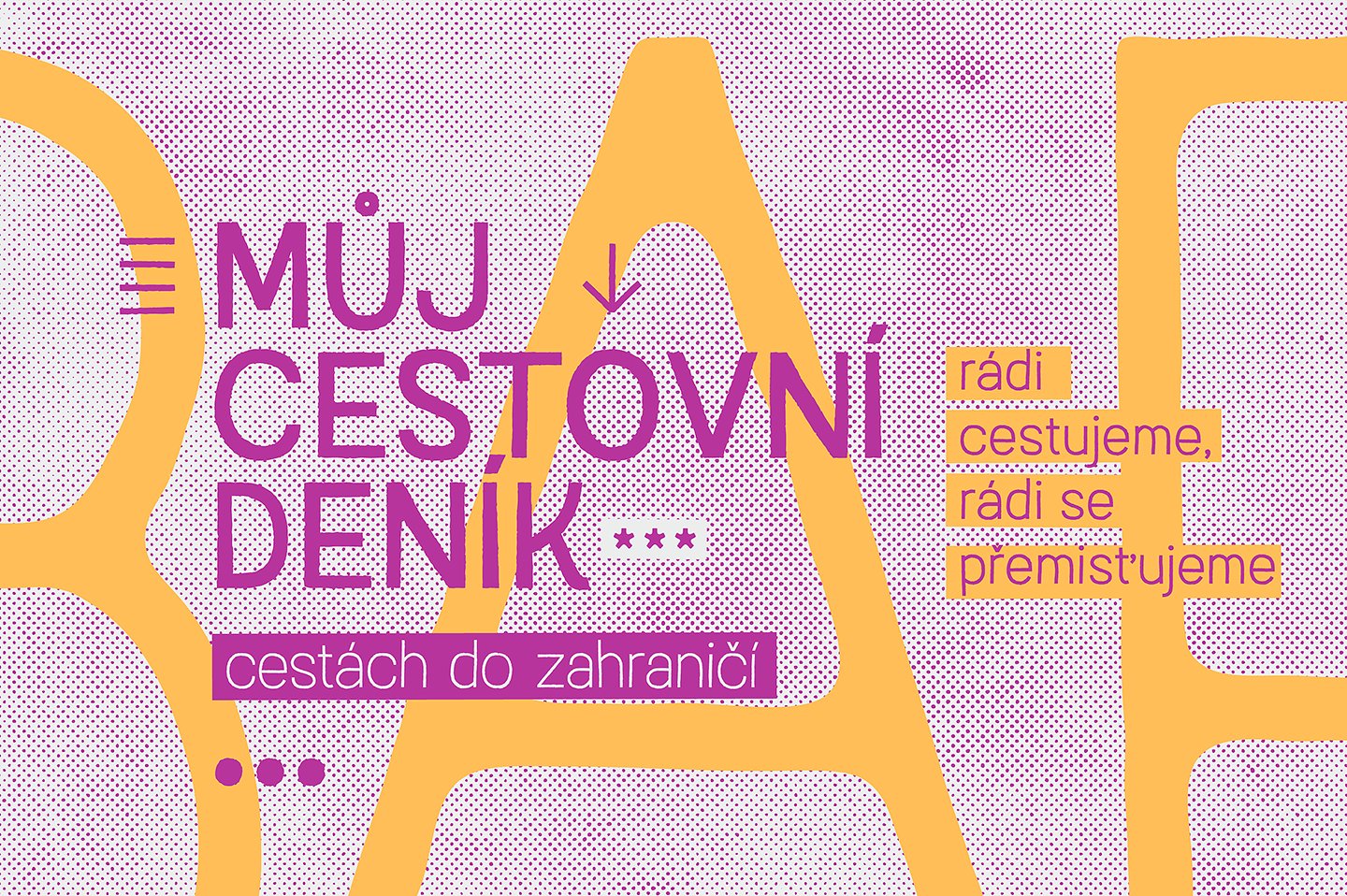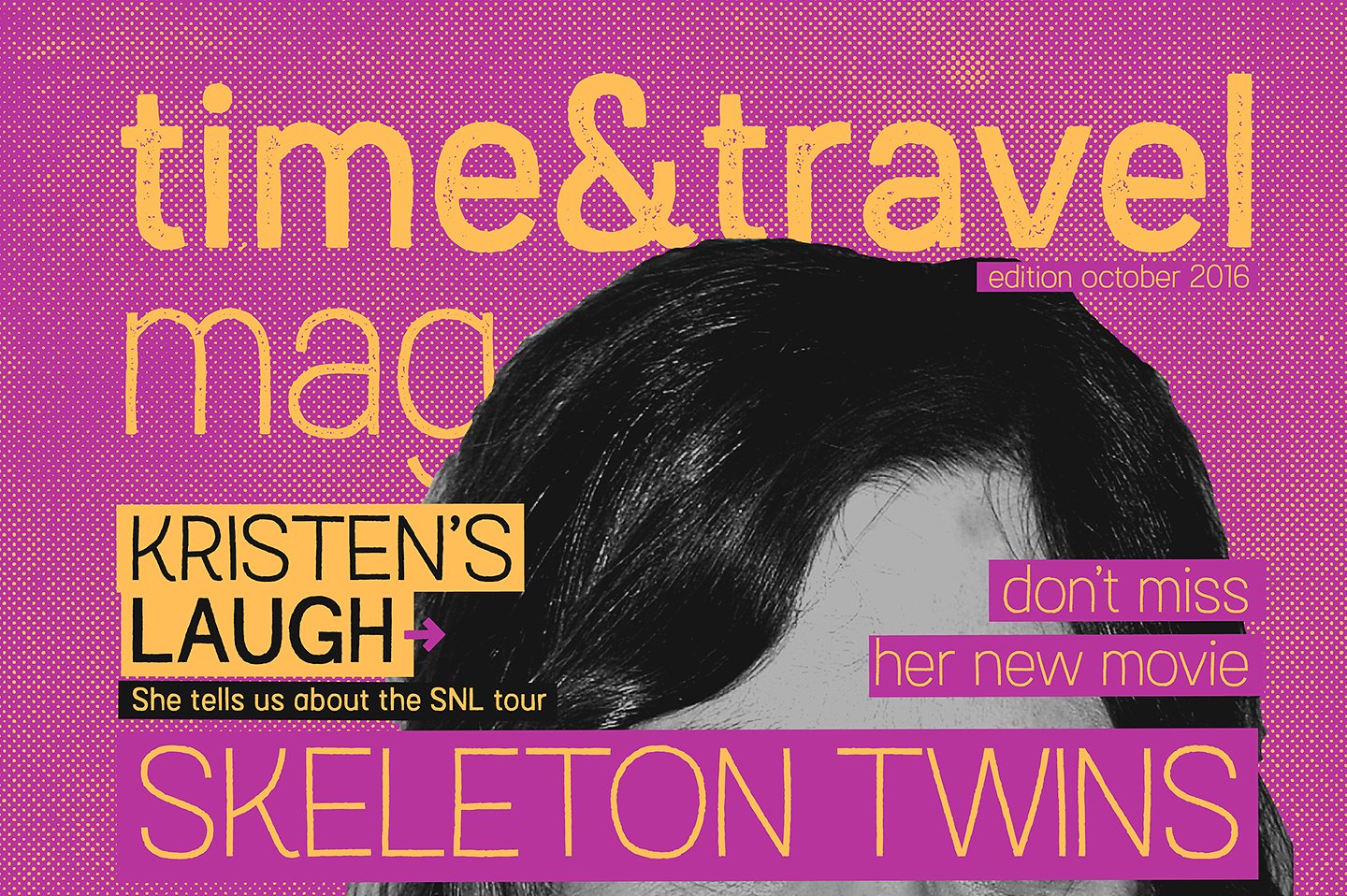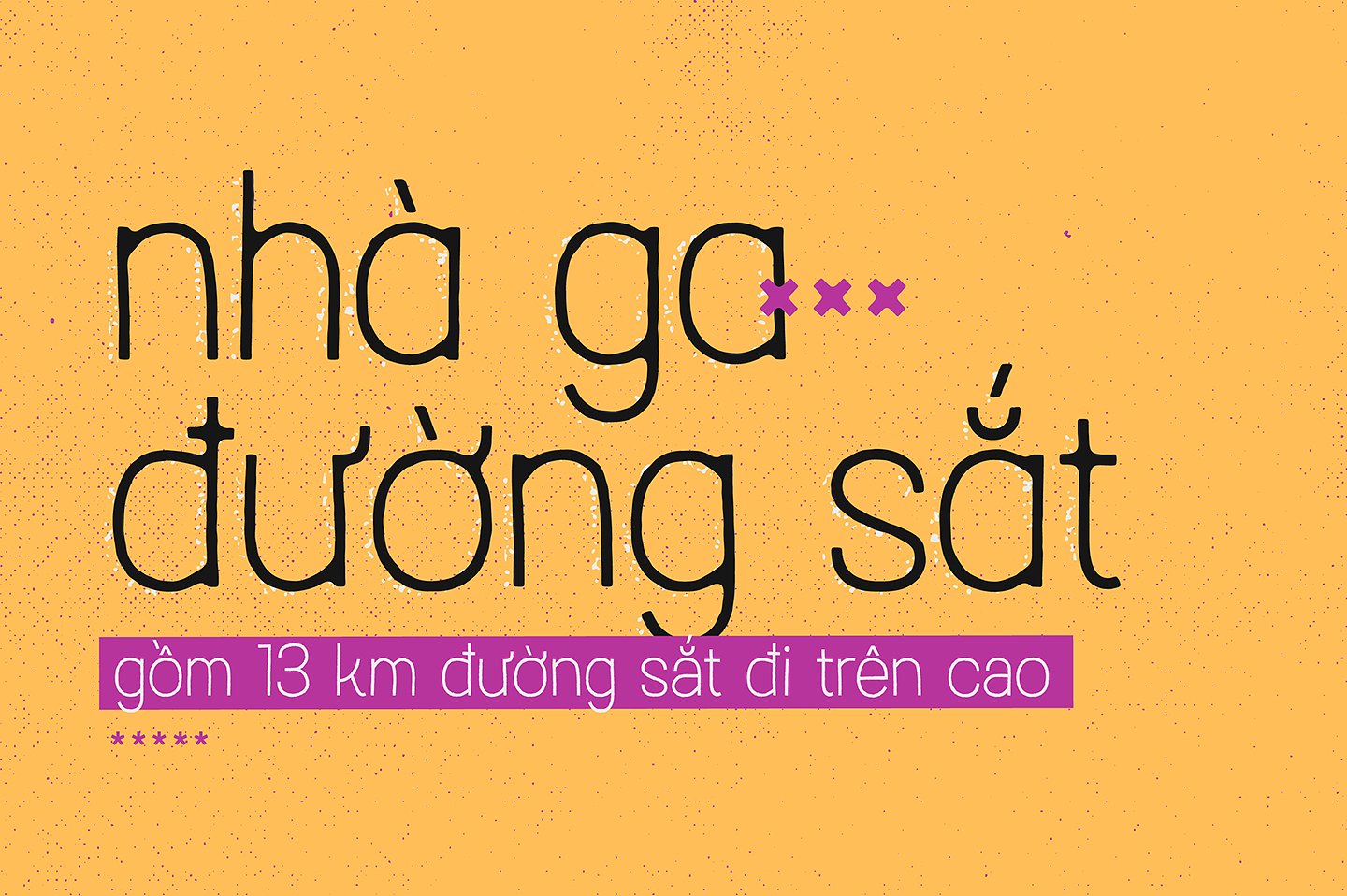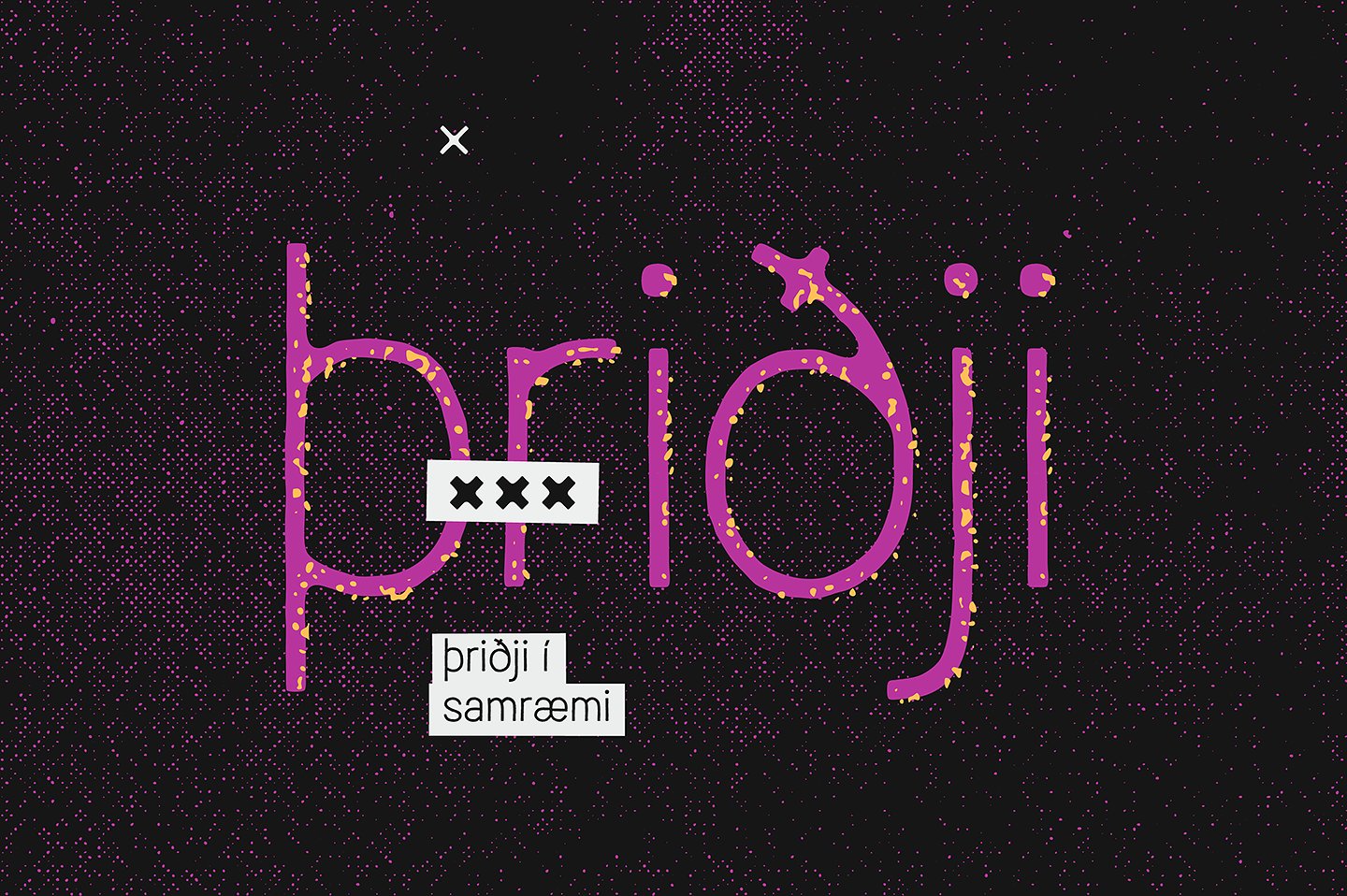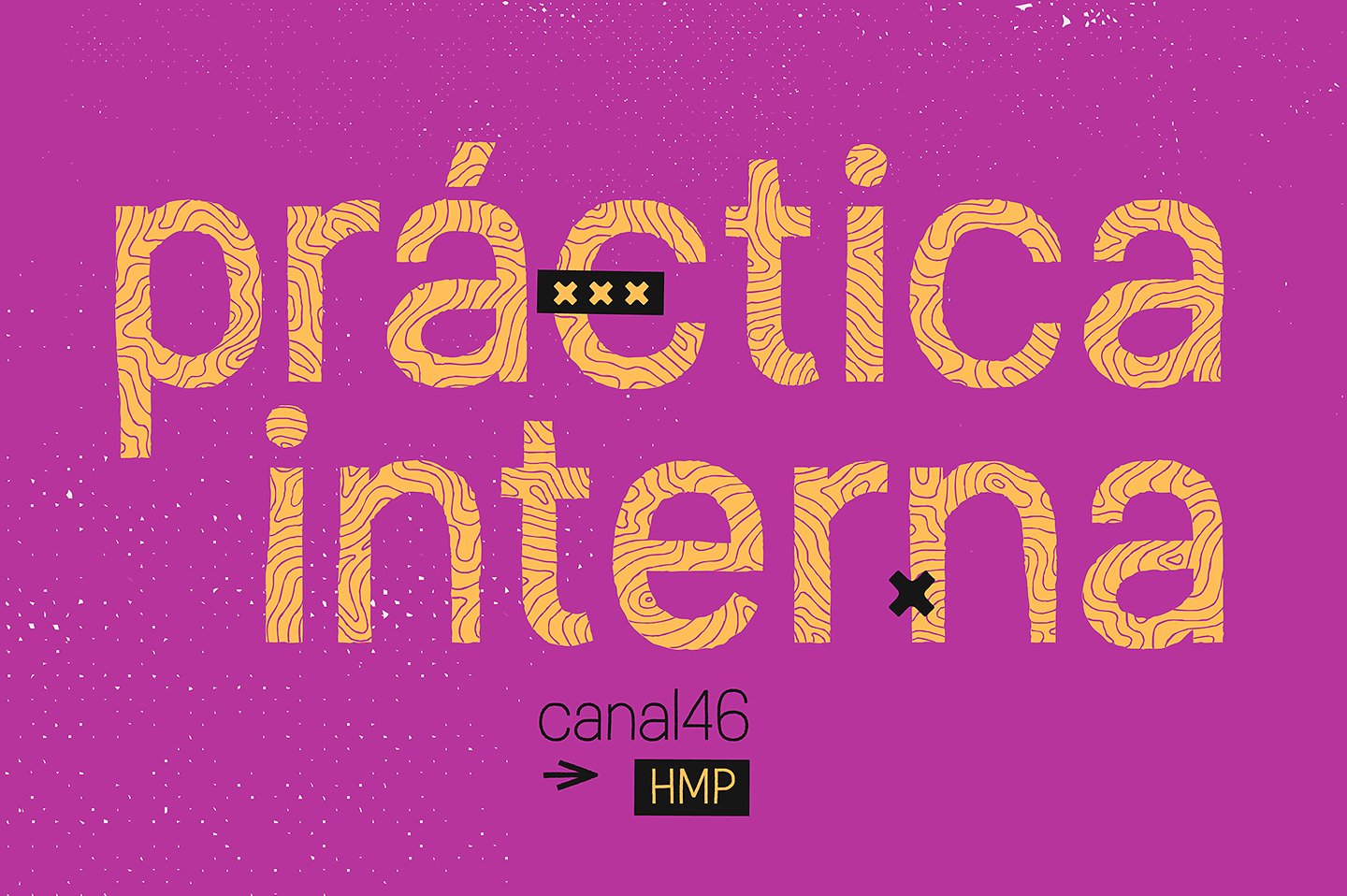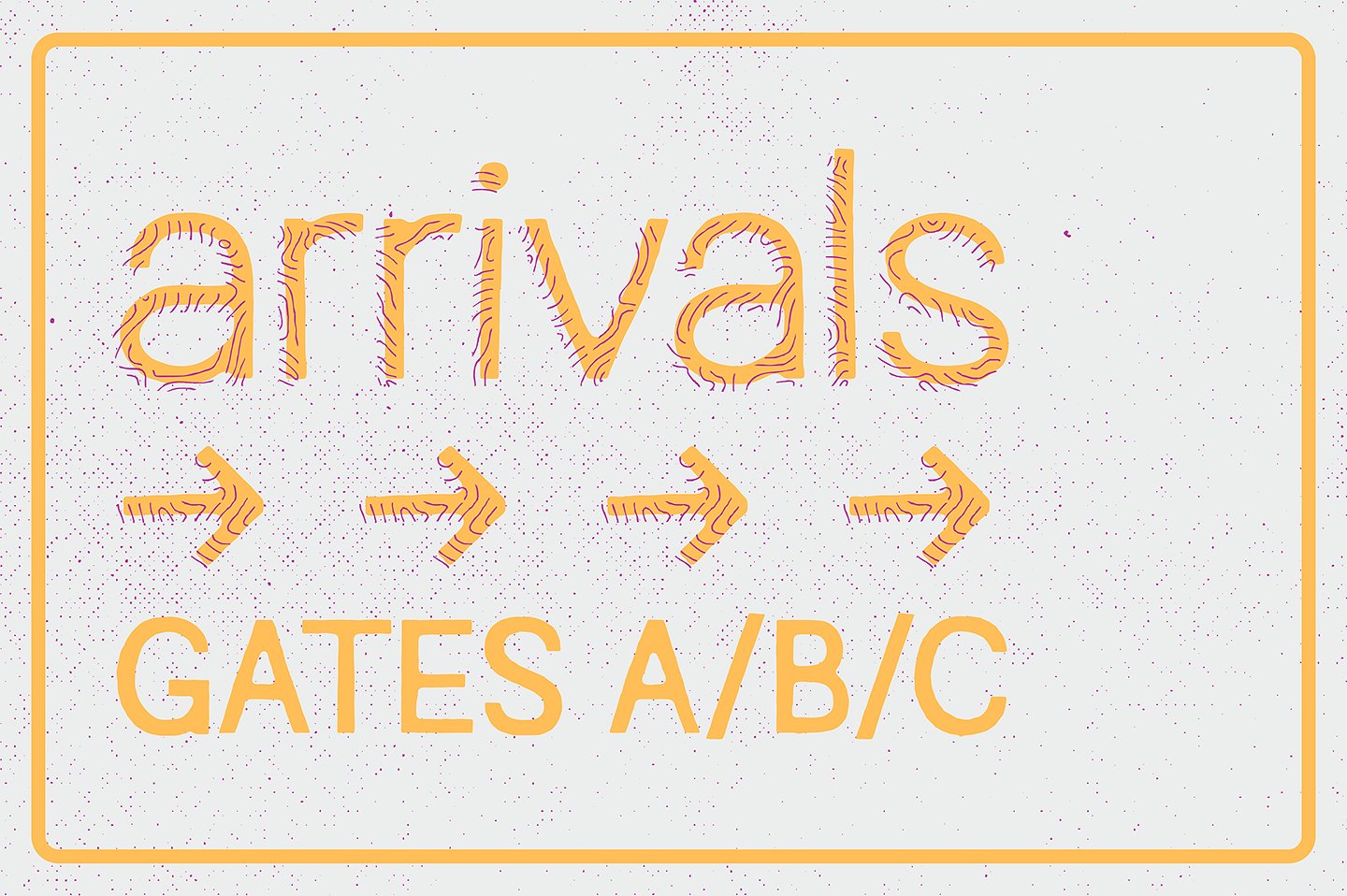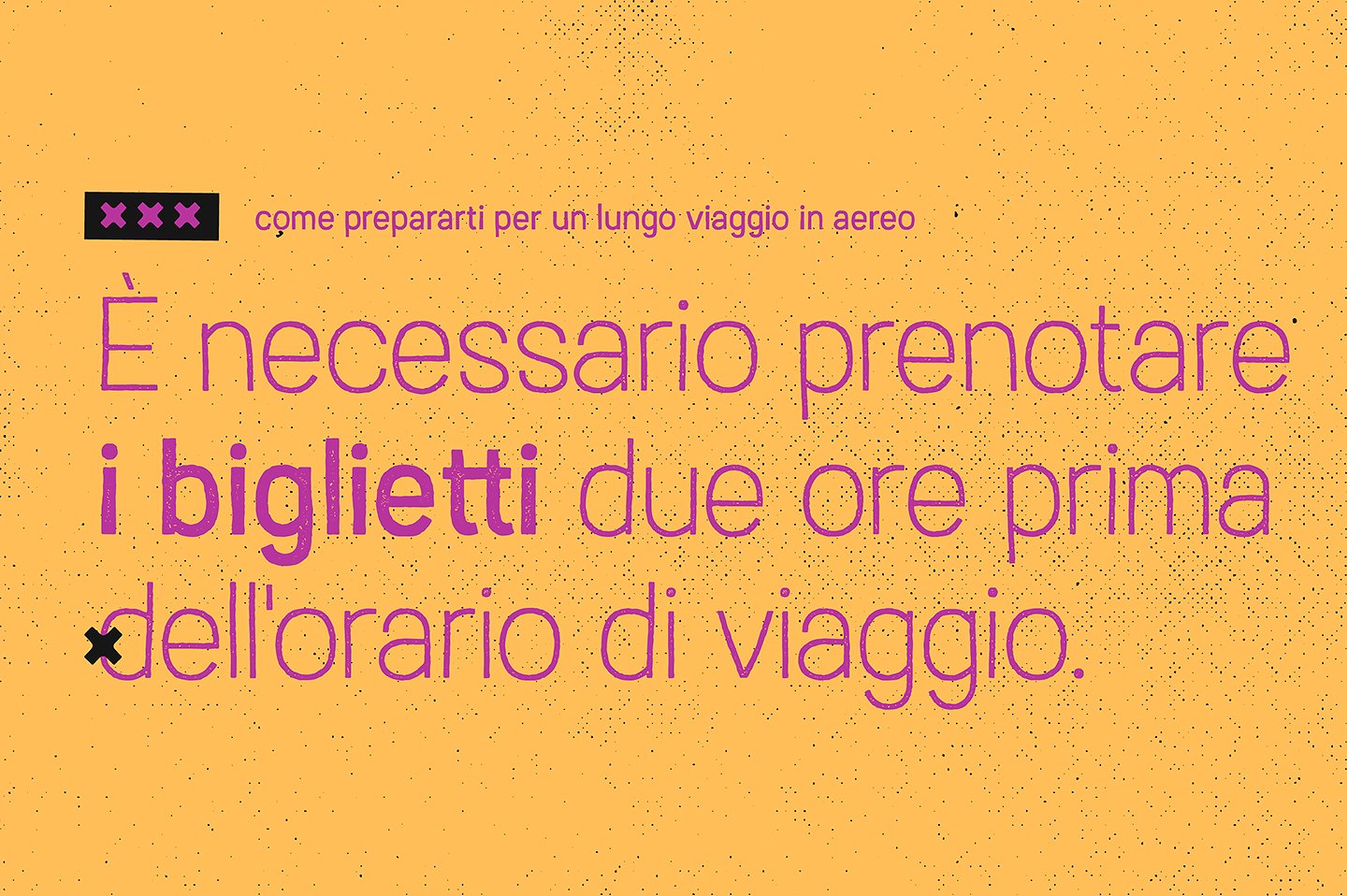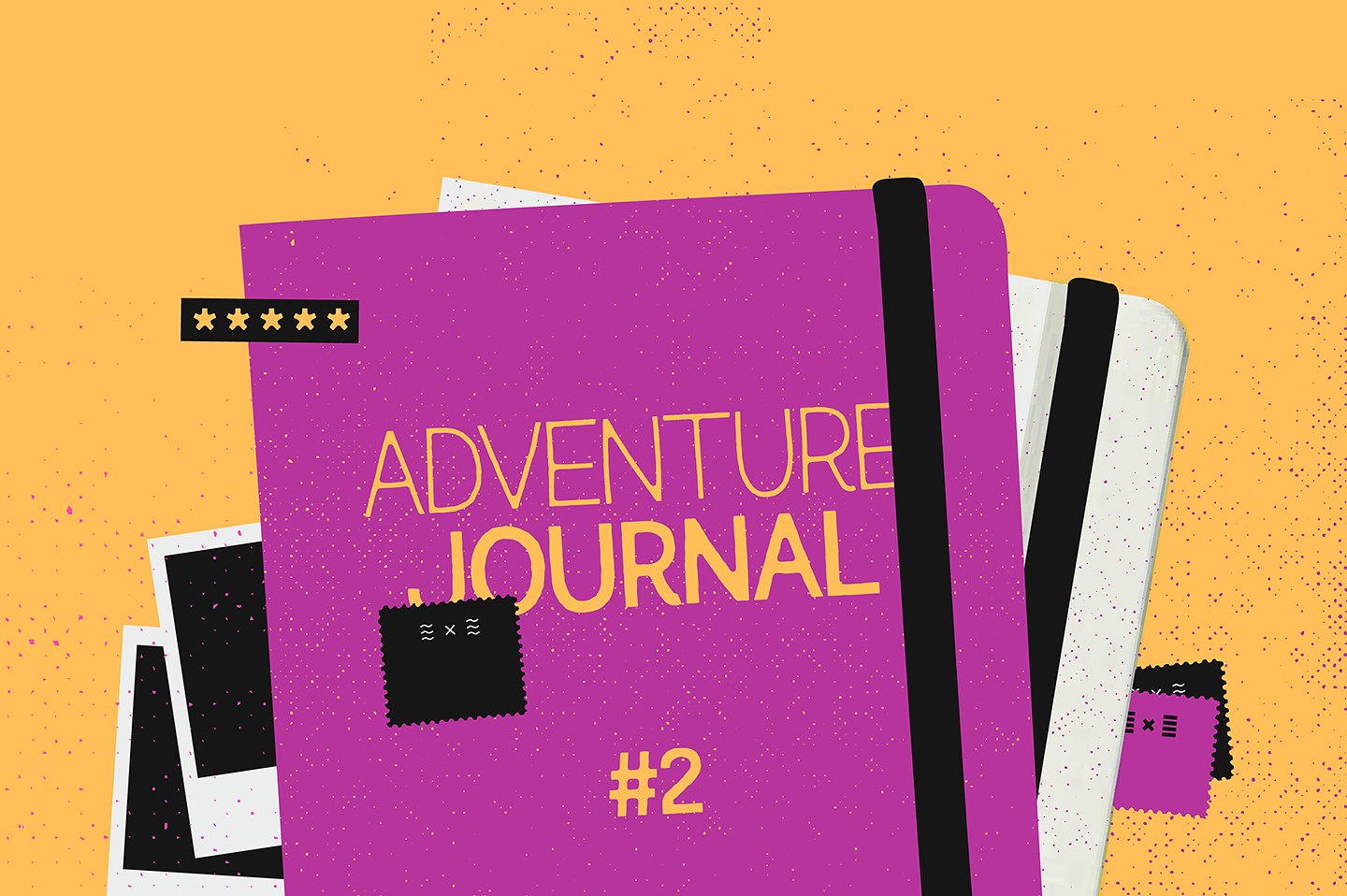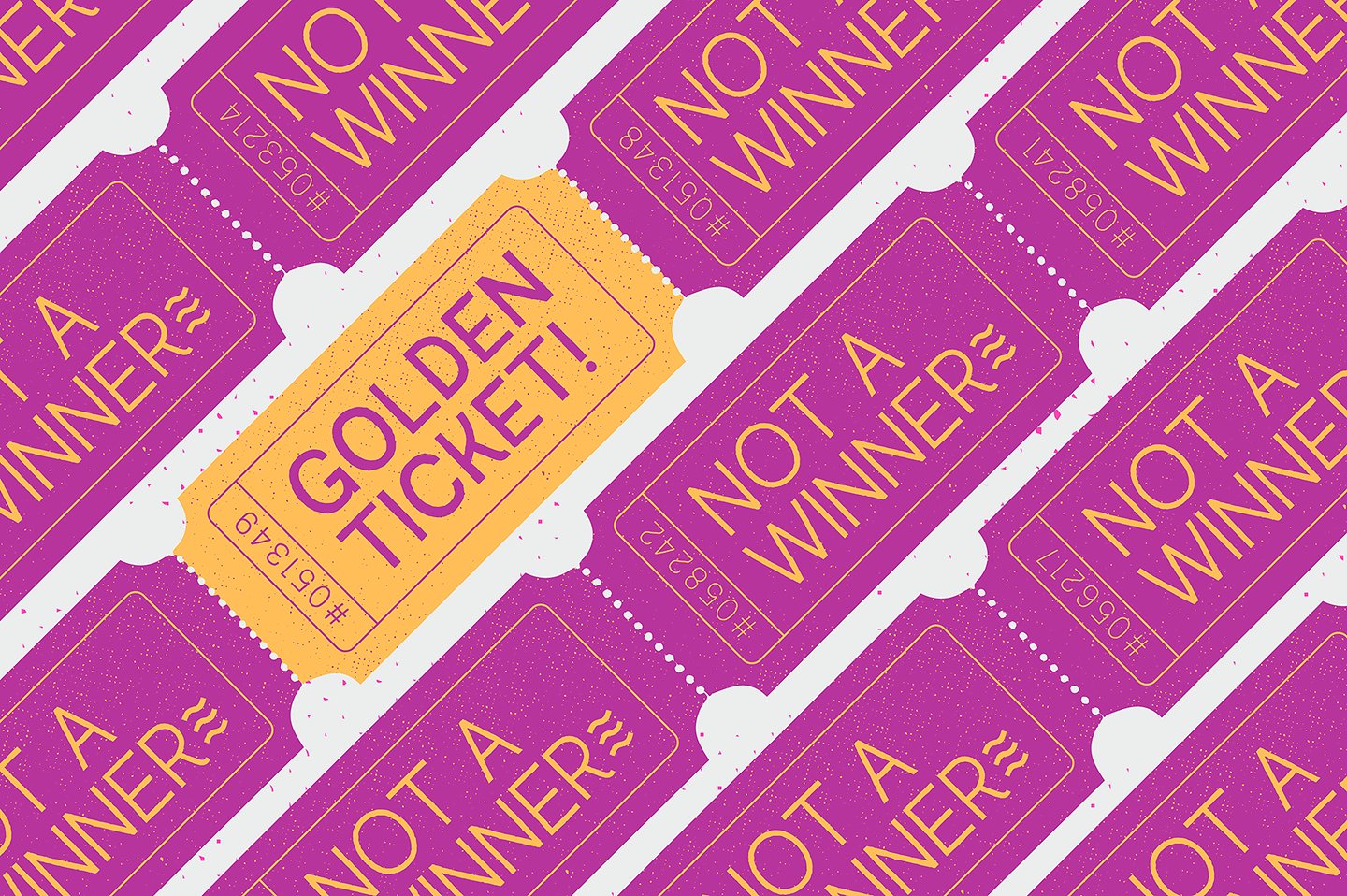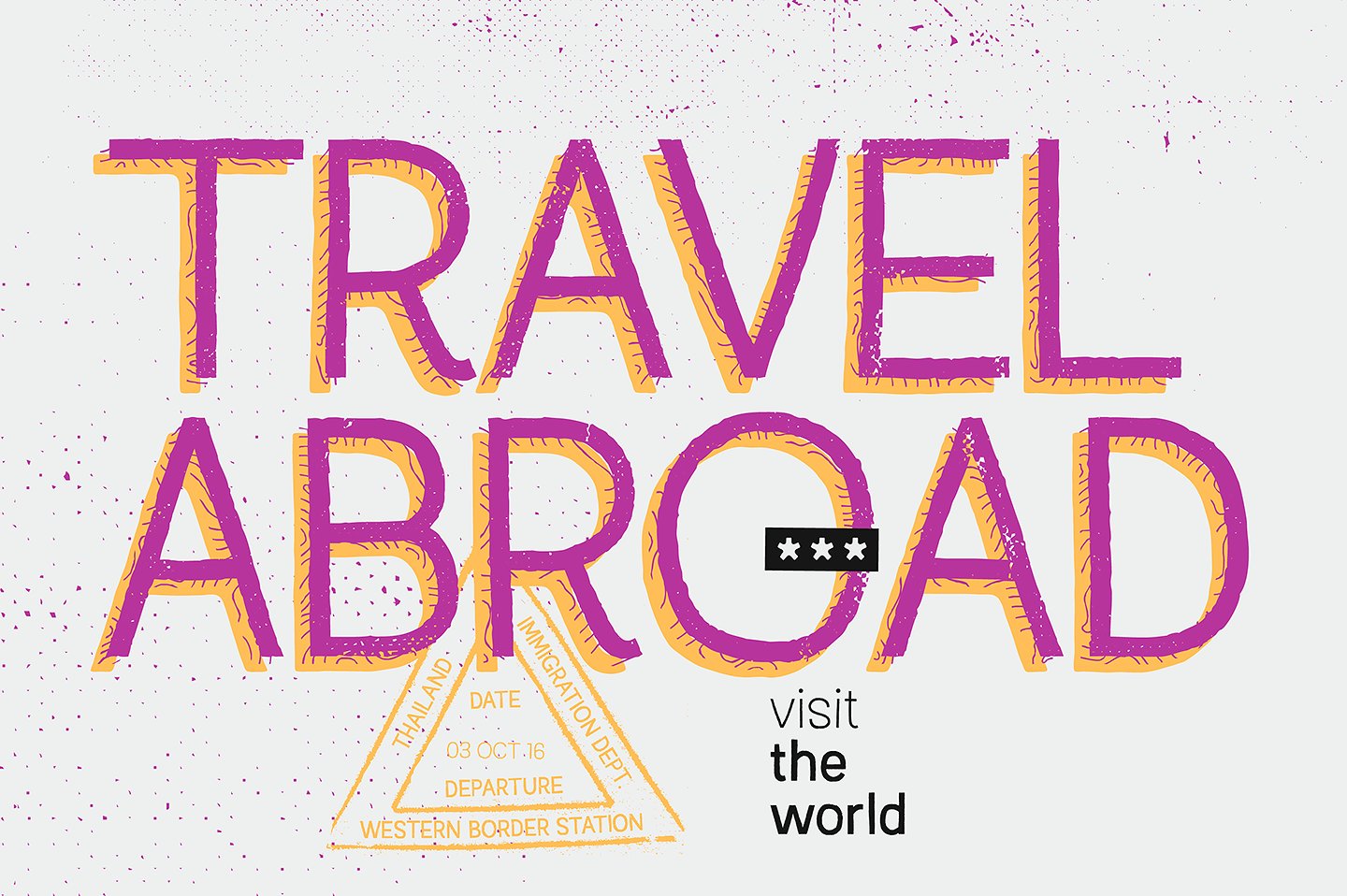
Austral Sans Font
About Austral Sans Font
Austral Sans is a jaw-dropping hand-drawn layered font. This is the font to use when you need to make your work look unique and noteworthy, with endless possibilities of textures and styles that provide distinctive results.